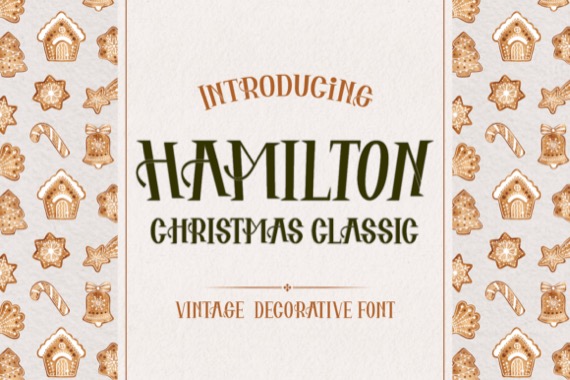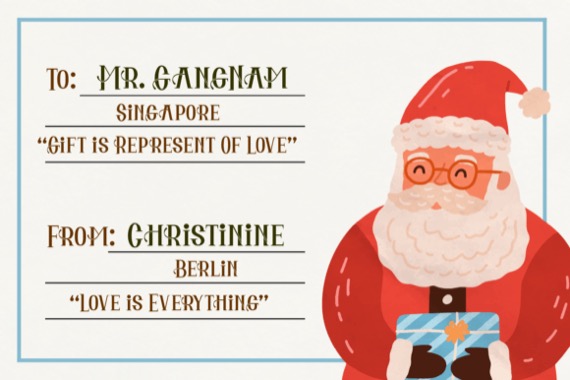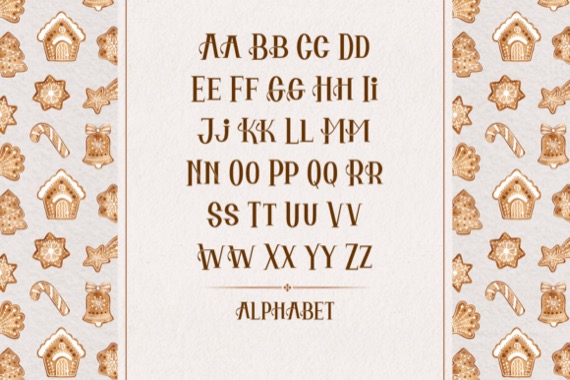
Introducing Hamilton Font from Yan (7NTypes), a Christmas classic vintage font that evokes the timeless charm of the holiday season. With its elegant and nostalgic letterforms, Hamilton brings a touch of vintage sophistication to your festive projects. Perfect for holiday cards, seasonal greetings, and any design that aims to capture the spirit of yesteryears. Embrace the warmth of tradition and infuse your Christmas creations with the timeless appeal of Hamilton.
Hamilton Vintage Decorative Font